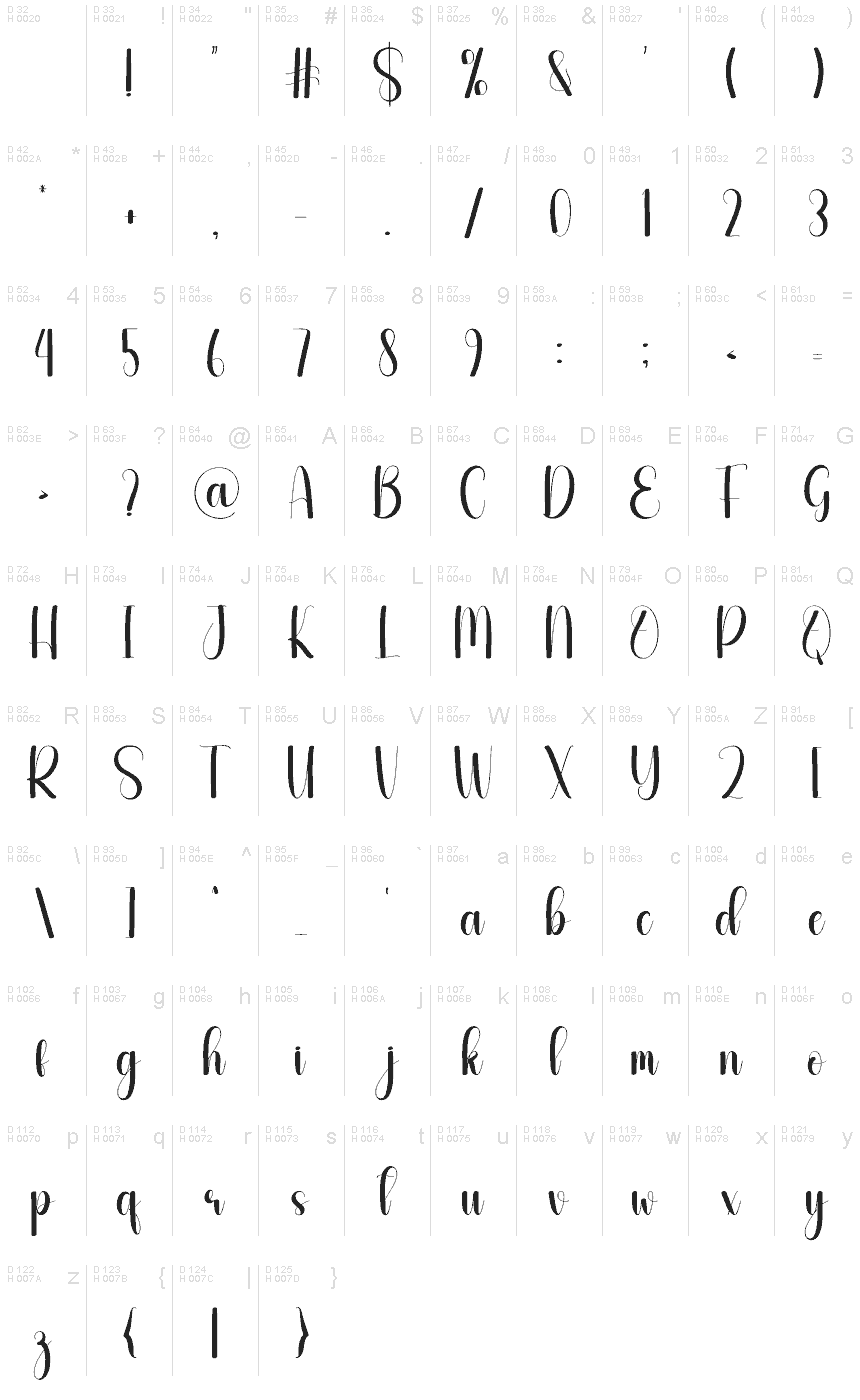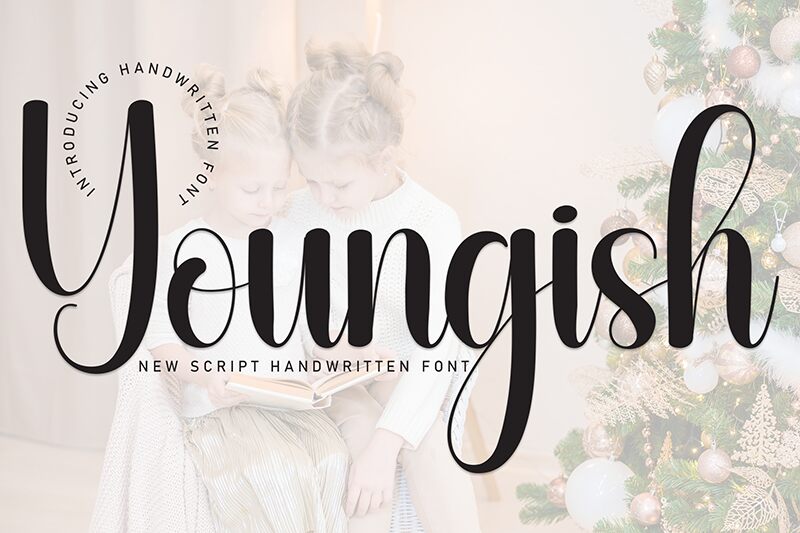
Youngish
Youngish font by Andi Moz is a free calligraphy typeface that displays an elegant flowing character with script-style pen strokes. The relaxed shape of the font and the expressive overall look make this lovely creation distinctive and fun to read. Its gentle romantic style is produced by modern calligraphy influences leading to a sophisticated mood.